30 Best Luxury Sans Serif Fonts for High-End Branding in 2026
Choosing the right typeface can make or break a brand’s identity, especially when aiming for a premium feel. In this guide, I’ve curated 30 luxury sans serif fonts that define modern sophistication for 2026. Whether you are working on a sleek editorial layout or a clean logo, these luxury sans serif fonts offer the perfect balance of elegance and readability to set your work apart from the competition.
1. Lignée Font
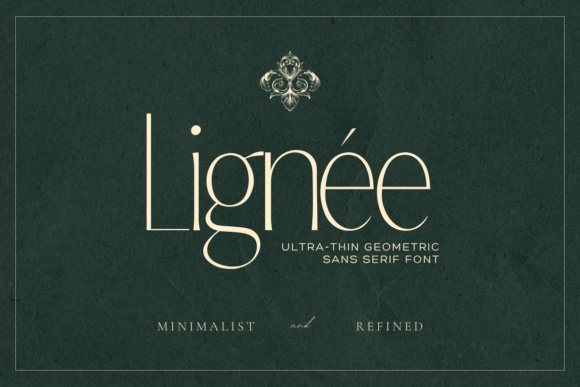
Lignée Font represents the pinnacle of minimalist sophistication, offering an ultra-thin silhouette that feels both ethereal and grounded. Inspired by the sharp lines of modern architecture and the fluid grace of editorial fashion spreads, this typeface moves away from the bulk of traditional lettering to provide a breath of fresh air in crowded layouts. Its geometric precision is subtly tempered by organic, hand-drawn nuances, making it an exceptional choice for designers who prioritize intentionality and quiet confidence in their visual storytelling.
This typeface excels in environments where negative space is as important as the content itself. Whether you are developing a luxury skincare brand or designing a high-end gallery catalog, the delicate strokes of Lignée offer a premium feel without overwhelming the viewer. It is a masterclass in how luxury sans serif fonts can utilize restraint to command attention, ensuring that your branding remains distinctive and elegantly understated across both digital and physical touchpoints.
2. Vosage Font
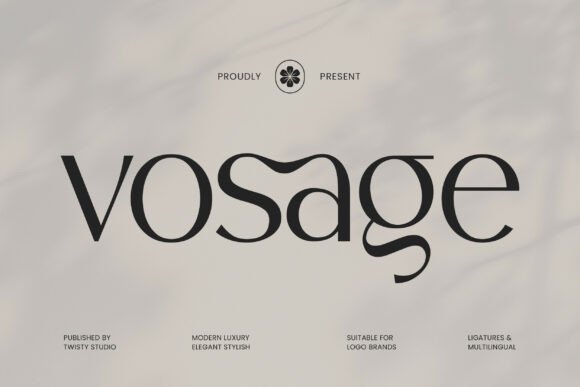
Vosage Font is a testament to modern professionalism, blending sleek lines with balanced proportions to create a high-end visual experience. Unlike more decorative alternatives, this typeface focuses on clarity and contemporary refinement, allowing the core message of a brand to resonate through minimalist elegance. It bridges the gap between timeless classicism and current design trends, making it a versatile tool for corporate identities that need to appear established yet forward-thinking.
Ideal for premium packaging and editorial layouts, Vosage provides a polished identity that scales beautifully from small-print disclosures to large-scale signage. Its understated nature makes it a perfect companion for high-contrast photography and bold color palettes, ensuring the typography supports rather than competes with the overall aesthetic. By choosing this font, you are opting for a sense of quiet luxury that speaks volumes through its sheer quality and structural integrity.
3. High Font
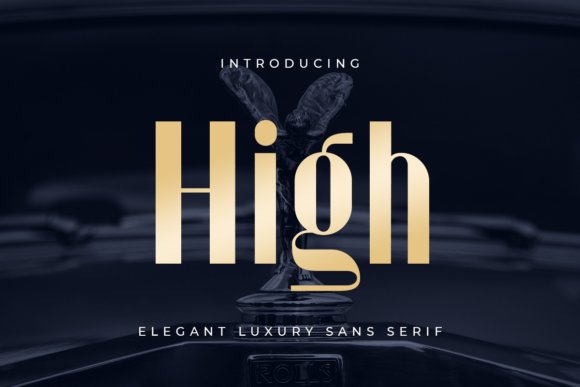
High Font stands out as a versatile powerhouse within the world of luxury sans serif fonts, specifically engineered for projects that demand a custom, bespoke appearance. What sets this typeface apart is its expansive library of unique ligatures and alternate characters, which allow designers to craft one-of-a-kind wordmarks and headlines. It moves beyond standard letterforms to offer a creative playground where shapes can be manipulated to add significant value and personality to a brand’s visual vocabulary.
For product owners and creative directors seeking a solution for high-end event branding or fashion-forward lookbooks, High Font offers endless possibilities for customization. The ability to swap out standard glyphs for avant-garde alternates ensures that no two designs ever look the same, providing a level of exclusivity that is vital in luxury markets. It is an essential asset for anyone looking to push the boundaries of traditional sans serif design while maintaining an aura of sophisticated elegance and artisanal craft.
4. Marquez Font
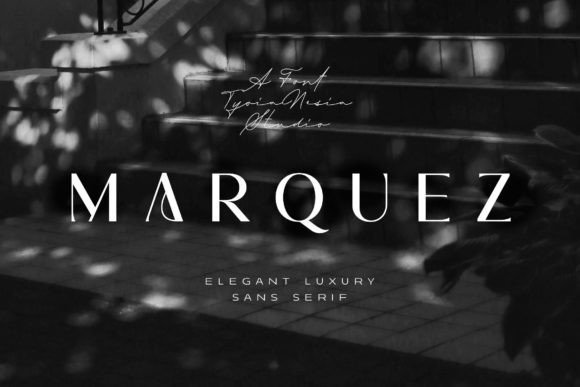
Marquez stands at the intersection of high-fashion editorial design and modern boutique branding. Its letterforms are imbued with a ‘girlboss’ energy that balances strength with a delicate, feminine touch, making it an exceptional choice for luxury sans serif fonts aimed at cosmetic labels and upscale stationery. The typeface thrives in environments where visual hierarchy is paramount, offering a clean yet assertive presence that captures the essence of a contemporary art gallery or a high-end fashion magazine.
Beyond its aesthetic appeal, this font is engineered for versatility across various mediums, from digital blog headers to tactile home decor packaging. When used in luxury logo design, Marquez provides a timeless quality that feels both current and enduring. It is particularly effective for promotional materials where a sense of personalized exclusivity is required, ensuring that every headline or invitation carries a distinctively professional and polished signature.
5. Legowo Font
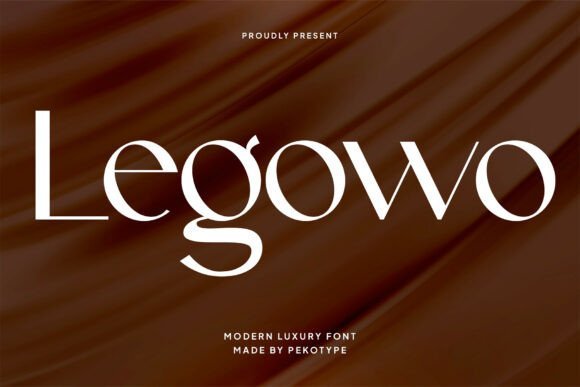
Legowo redefines the minimalist aesthetic by introducing a striking variation in stroke weight that is rarely seen in traditional sans-serif families. This intentional contrast between hairline thins and bold stems creates a rhythmic elegance that mirrors the sophistication of high-end jewelry or prestige automotive branding. By breaking the monotony of uniform lines, it offers a dynamic visual texture that commands attention without sacrificing the clarity required for high-fashion digital platforms.
In practical application, Legowo excels as a headline font for premium editorial layouts and luxury advertising campaigns. Its unique construction allows it to function as a focal point in social media visuals, where its modern charm helps brands project an image of confident opulence. Whether utilized for a sophisticated logo or as a secondary typeface in an expansive brand identity project, it delivers a level of refinement that elevates the overall design narrative.
6. Le Quarte Font
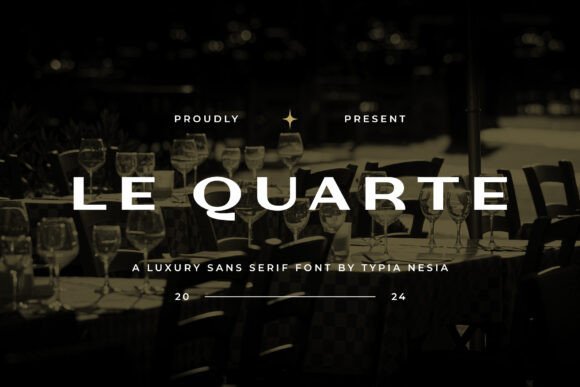
Le Quarte is characterized by its wide, expanded architecture, which evokes a sense of grandeur and spatial luxury often found in high-tier real estate or premium fragrance branding. The horizontal emphasis of its characters provides a cinematic feel, making it a powerful statement font for large-scale posters and digital hero sections. This typeface manages to bridge the gap between classic proportions and a futuristic edge, resulting in a versatile tool for designers looking to convey stability and prestige.
The expansive nature of Le Quarte makes it particularly effective for luxury packaging and advertising where the brand name needs to dominate the visual field with authority. Its confident letterforms are designed to work harmoniously with minimalist layouts, allowing the negative space to breathe while the typography anchors the design. For any project requiring an unmistakable aura of modern elegance, this font serves as a cornerstone for building an elite brand identity.
7. Cauloid Font
Cauloid Font represents a masterclass in monoline fluidity, offering a rhythmic soul that captures the essence of a coastal breeze. Designed by Gracetype Studios, this typeface maintains a consistent stroke thickness, which provides a clean, contemporary edge that contrasts beautifully with more traditional calligraphy. Its sweeping loops and elegant ligatures are engineered for brands that prioritize a friendly yet high-end aesthetic, ensuring that even complex lettering remains legible and visually harmonious across various digital and print mediums.
In high-end design environments, this typeface excels when utilized for luxury packaging, particularly within the organic skincare or artisanal beverage sectors where a sense of natural movement is paramount. To maximize its visual impact, it is best paired with minimalist luxury sans serif fonts to create a balanced typographical hierarchy that allows the script’s personality to shine without overwhelming the layout. Whether you are developing a travel blog header or a sophisticated boutique logo, Cauloid provides the versatile, handmade warmth necessary for effective visual storytelling.
8. Belaria Font
Belaria Font is a sophisticated exercise in modern calligraphy, blending the timeless charm of hand-flowing ink with the precision of contemporary digital type. Characterized by its natural bounce and varying stroke weights, this typeface mimics the elegant friction of a nib on parchment, making it a premier choice for designers looking to inject a sense of movement into static layouts. Its smooth, sweeping curves are designed to command attention, providing an ethereal and romantic vibe that is perfect for large-scale headers or gold-foil stamped stationery.
This font transitions seamlessly from intimate personal branding to commercial displays, such as high-end restaurant menus or luxury lifestyle magazine covers. For a truly professional finish, it should be layered with structured luxury sans serif fonts, creating a rhythmic tension between the script’s organic flourishes and the sans serif’s geometric stability. This combination is particularly effective for wedding invitation suites and wellness-oriented branding, where an aura of effortless grace and premium quality is essential to the brand’s identity.
9. Agathe Signature Font
Agathe Signature Font is the epitome of high-fashion minimalism, featuring a rapid-stroke aesthetic that feels like the authentic handwriting of a creative professional. This typeface adds a deeply personal, human touch to digital designs, transforming standard text into a bespoke piece of art. It is specifically tailored for those who require a sophisticated identity, such as high-end photography watermarks, editorial layouts, or sleek business cards for independent consultants who value understated elegance and exclusivity.
The rhythmic lines of Agathe Signature offer a chic, expressive flow that works exceptionally well when contrasted against bold, wide-spaced luxury sans serif fonts. This pairing creates a contemporary visual hierarchy that feels both modern and established. Additionally, the font is PUA encoded, ensuring that all unique glyphs and artistic swashes are easily accessible across various design software, making it a practical yet stylish tool for crafting cohesive social media aesthetics and premium branding packages.
10. Fringk Font
Fringk Font represents a masterclass in refined display typography, blending the timeless charm of traditional serifs with the crisp execution required by contemporary high-end branding. Its sharp terminals and pronounced contrast provide a sense of architectural precision, making it an exceptional choice for editorial layouts or prestige packaging where every millimeter of design counts. By balancing classic warmth with modern geometric clarity, this typeface ensures that your brand identity remains legible while projecting an aura of effortless sophistication and boutique exclusivity.
Beyond its visual appeal, the versatility of Fringk Font allows it to anchor diverse creative projects, from upscale wedding stationery to fashion lookbooks. Its polished letterforms pair seamlessly with minimalist luxury sans serif fonts, allowing designers to create a layered typographic hierarchy that feels curated and intentional. Whether utilized for a bold headline in a luxury magazine or a delicate logo for a premium skincare line, this typeface brings a level of grace and authority that naturally elevates the surrounding visual elements.
11. Pavesky Font
Pavesky Font is the epitome of the modern luxury sans serif fonts movement, defined by its minimalist structure and gracefully flowing curves. Designed specifically for brands that want to communicate a sense of quiet luxury, this typeface avoids unnecessary ornamentation in favor of balanced proportions and clean, feminine aesthetics. Its airy letterforms make it a standout choice for cosmetic branding and skincare packaging, where a feeling of purity and high-grade quality is essential for connecting with a discerning audience.
In digital environments, Pavesky Font maintains its impeccable readability, making it a reliable asset for aesthetic visual projects and social media assets that require a polished, premium look. The font’s subtle weight distribution lends a rhythmic flow to titles and posters, ensuring that the message is delivered with a calm but confident voice. It is a go-to resource for designers looking to infuse their work with a timeless beauty that transcends fleeting trends, providing a stable foundation for any luxury-oriented visual strategy.
12. Spadore Font
Spadore Font bridges the gap between nostalgic retro aesthetics and cutting-edge modern design, offering a typographic solution that is both trendy and deeply elegant. What distinguishes this typeface is its rich selection of alternates and ligatures, which are easily accessible via PUA encoding. This allows for a high degree of customization, enabling designers to craft unique, bespoke wordmarks for high-fashion logos or luxury website headers that look custom-made. The interplay between its stylish binders and classic structure provides a creative edge that many standard luxury sans serif fonts lack.
This font thrives in environments that demand a bold, artistic statement without sacrificing professional polish. It is particularly well-suited for branding projects that wish to evoke a sense of heritage while remaining firmly rooted in the present. Whether you are developing an identity for a boutique hotel or a luxury lifestyle blog, Spadore Font offers the flexibility to pivot between a clean, modern display and a more elaborate, decorative style, ensuring your typography is as distinctive as the brand it represents.
13. Broadway Flower Font
Broadway Flower represents a fresh take on luxury sans serif fonts, blending modern simplicity with a touch of artistic flair. Its defining characteristic lies in the thoughtfully crafted uppercase ligatures, which offer designers a wealth of creative possibilities when building bespoke logos or editorial headlines. This balance of minimalism and decorative potential makes it a standout choice for high-end lifestyle brands that want to convey both clarity and personality.
Beyond its structural elegance, the font radiates a bright and airy vibe that feels inherently sophisticated. It is particularly effective for wedding stationery, premium product labels, and photography watermarks where a clean, modern aesthetic is required. By integrating this typeface into your design toolkit, you gain access to a versatile asset that elevates standard typography into a luxury branding experience.
14. Golie Font
Golie Font is a premier example of refined typography, specifically engineered for brands that prioritize a feminine and high-end aesthetic. Characterized by its clean lines and meticulously balanced proportions, this luxury sans serif font avoids unnecessary clutter to focus on pure, sophisticated form. It is the ideal companion for boutique fashion houses and the cosmetics industry, where every curve of a letter must reflect the quality of the product it represents.
The typeface excels in digital and print environments alike, providing a polished look for luxury catalogs, beauty blogs, and modern editorial layouts. Its understated strength allows it to command attention without overwhelming the overall design, making it a staple for creative directors who need a reliable, upscale typeface for identity projects. Whether applied to a minimalist business card or a grand storefront sign, Golie maintains its clarity and premium feel.
15. Mofulina Font
Mofulina Font arrives as a majestic entry into the world of luxury sans serif fonts, designed specifically for high-impact display use. Its architectural structure conveys a sense of permanence and prestige, making it an excellent choice for corporate identities, luxury real estate branding, and upscale automotive marketing. The font includes a variety of stylistic alternates, allowing you to customize specific characters to fit the unique rhythm of your brand name or headline.
This typeface is more than just a collection of letters; it is a tool for visual storytelling that emphasizes clean, bold elegance. From sophisticated social media campaigns to high-end product packaging and stationery, Mofulina provides a sense of grandeur that is hard to replicate. Its versatility ensures that even in complex layouts, the font remains legible while exuding an aura of exclusivity and modern craftsmanship.
16. Luxury Élégance Font
Luxury Élégance Font stands out by blending a refined aesthetic with an approachable, authentic personality. While many luxury sans serif fonts lean towards a cold, sterile minimalism, this typeface introduces a subtle playfulness that breathes life into branding projects. It is particularly effective for lifestyle influencers and boutique agencies looking to bridge the gap between high-end professionalism and a welcoming, human-centric brand voice.
The font’s versatility shines in tactile applications such as custom planners, photo albums, and high-quality stationery. Its clean lines ensure maximum readability on digital screens, making it a top-tier choice for modern blog headers and social media advertisements. Whether you are crafting a sophisticated logo or an intimate wedding invitation, this font provides a polished finish that never feels over-engineered.
17. Black Font
Black Font redefines the standard display typeface by merging heavy, comic-inspired proportions with the sophisticated DNA of luxury sans serif fonts. This contemporary powerhouse is designed for creators who need their messaging to be both unmissable and upscale. The balanced weight and generous counters offer exceptional legibility, making it an ideal candidate for bold product packaging and high-contrast advertising campaigns that demand immediate attention.
Beyond its visual weight, the font carries a fancy, avant-garde flair that works surprisingly well in specialized wedding designs or edgy streetwear branding. It serves as a striking focal point for watermarks and professional photography signatures where a thin, wispy font simply won’t suffice. If your project requires a unique blend of modern architecture and whimsical character, this font delivers a distinctive presence.
18. Bosky Evanish Font
Bosky Evanish Font is a masterclass in modern editorial design, offering a sleek and stylish silhouette that is synonymous with the high-fashion industry. As one of the most versatile luxury sans serif fonts in a designer’s toolkit, it balances masculine strength with feminine grace, making it a neutral yet powerful choice for diverse branding identities. The typeface feels inherently expensive, lending an air of prestige to magazine covers, book layouts, and premium website headers.
This font is especially suited for signature-style logos and corporate stationery where a minimal but impactful aesthetic is required. Its crisp edges and elegant spacing make it a favorite for architectural firms and luxury real estate marketing. When used in typography-heavy layouts or digital lookbooks, it provides a sophisticated structure that elevates the surrounding content without overwhelming the viewer’s eye.
19. Jenura Font
Jenura Font is a masterful blend of traditional elegance and contemporary chic, designed to stand out in high-fashion environments. Its high-contrast letterforms and graceful curves provide a sense of refined opulence that is often sought after in premium editorial designs. By incorporating unique ligatures and artistic alternates, this typeface allows designers to create bespoke typographic layouts that feel tailored and exclusive. It serves as an excellent high-impact companion when paired with minimalist luxury sans serif fonts, offering a visual counterpoint that adds depth to any brand identity project.
Beyond its striking visual appeal, Jenura is engineered for versatility across various media, from luxury perfume packaging to digital storefronts for boutique retailers. The balance between its sharp serifs and smooth terminals ensures readability while maintaining an aura of prestige. Whether you are crafting a logo for a high-end jewelry line or laying out a multi-page fashion spread, this font delivers a polished, sophisticated aesthetic that elevates the overall design language to a world-class level.
20. Artezy Font
The Artezy Font family represents the pinnacle of modern geometric design, offering a comprehensive suite of 18 distinct weights that cater to every typographic need. Inspired by the intersection of fine art and effortless legibility, this collection is a quintessential example of how luxury sans serif fonts can transform a simple layout into a statement of high-end branding. The high-contrast strokes and clean, modern lines provide a crisp visual hierarchy, making it an ideal choice for corporate identities, architectural presentations, and premium tech startups looking for a sleek, authoritative voice.
In practical application, the breadth of the Artezy family allows for incredible creative flexibility, enabling designers to maintain brand consistency across everything from massive outdoor billboards to intricate mobile app interfaces. The lighter weights exude an airy, ethereal quality perfect for lifestyle magazines, while the bolder weights command attention on product labels and digital headers. When looking for a font that embodies the essence of modern luxury sans serif fonts, Artezy provides the technical precision and stylistic flair necessary for contemporary visual storytelling.
21. Painting Font
Painting Font captures the organic beauty of hand-lettered calligraphy, bringing a human touch to the digital design landscape. Each character is crafted to mimic the fluid, rhythmic motion of a fine-tipped brush, resulting in a typeface that feels both spontaneous and meticulously planned. This script is defined by its dramatic flourishes and rhythmic flow, making it a standout choice for designers who want to break away from rigid structures and introduce a sense of motion and grace into their work. It is particularly effective when used as an accent or headline font alongside clean luxury sans serif fonts, creating a balanced aesthetic that feels both approachable and high-end.
For projects that require an extra layer of personalization, such as wedding invitations, artisan wine labels, or boutique spa branding, the Painting Font offers an unparalleled level of prestige. The inclusion of PUA-encoded characters ensures that its wide array of decorative swashes and alternates are easily accessible, allowing for customized flourishes that make every word look like a unique piece of art. This font does not just convey information; it conveys a mood of handcrafted luxury and artistic passion that resonates deeply with discerning audiences.
22. Imperium Monogram Font
Imperium Monogram Font stands as a pinnacle of stately design, drawing deep inspiration from the timeless structure of classical Roman inscriptions. Unlike standard luxury sans serif fonts, this typeface prioritizes a bold, structural presence that commands attention through its meticulously balanced proportions and regal flair. It is specifically engineered for high-end creators who need to instill a sense of heritage and noble sophistication into brand identities, making it an exceptional choice for bespoke leather goods, personalized stationery, or noble boutique logos.
Technical versatility is a core strength of this font, as it integrates seamlessly across modern design environments from Adobe Creative Cloud to craft-focused software like Cricut and Silhouette. While it functions beautifully as a standalone monogram, its architectural strength allows it to pair effortlessly with minimalist sans-serif companions to create a layered, multi-dimensional typographic system. Whether you are crafting embossed initials for a luxury wedding or developing a signature seal for a premium skincare line, this font ensures your visual storytelling remains grounded in authority and grace.
23. Geometrica Font
The Geometrica Font collection represents a masterclass in Swiss-inspired minimalism, offering four distinct typefaces—Kime, Romel, Berlin, and Elite—that embody the precision of modern geometric design. As a premier entry in the world of luxury sans serif fonts, this family emphasizes clean lines and a grotesque aesthetic that ensures maximum legibility without sacrificing high-end style. The collection is particularly effective for designers aiming for a contemporary, professional look in digital spaces, such as high-end e-commerce interfaces or editorial web layouts where clarity and credibility are paramount.
Each weight and style within the Geometrica suite has been refined to provide perfect visual balance, making it a go-to resource for luxury product packaging and sophisticated corporate branding. The inherent simplicity of the characters allows other design elements to breathe, yet provides a distinct personality that elevates any project from standard to premium. Its versatility extends across multiple mediums, serving as a reliable foundation for everything from minimalist cosmetics branding to complex architectural signage, proving that understated elegance is often the most powerful tool in a designer’s arsenal.
24. Cash and Mafia Font
Cash and Mafia Font is a masterstroke of high-fashion typography, blending ultra-thin strokes with an editorial serif structure to create an atmosphere of pure opulence. While it occupies the serif category, its sleekness and refined stems provide a sophisticated alternative for those who usually gravitate toward luxury sans serif fonts for their clean silhouettes. This typeface is purposefully designed for the world of haute couture and boutique branding, where every curve must exude grace and every line must whisper exclusivity. It thrives in environments like art gallery catalogs, high-end fashion magazines, and luxury hotel identity systems.
The delicate nature of this font makes it particularly striking for large-scale applications such as cover titles, boutique signage, and specialized event invitations where the typography acts as a central piece of art. It bridges the gap between traditional prestige and modern avant-garde, allowing designers to create layouts that feel both established and trendsetting. When used in conjunction with generous white space and high-quality photography, Cash and Mafia transforms standard promotional materials into a curated experience, perfect for brands that value a beauty-forward and fancy aesthetic.
25. Luminoir Grotesk Font
Luminoir Grotesk Font stands as a pinnacle of contemporary design, masterfully bridging the gap between high-performance variable technology and the timeless allure of luxury sans serif fonts. This typeface is characterized by its innovative tilted stems and rhythmic spacing, which infuse static text with a sense of fluid motion and futuristic intent. By offering a variable weight spectrum, it allows designers to fine-tune the visual weight of their layouts, ensuring that every headline or body block maintains a sophisticated, custom-tailored appearance across digital and print platforms.
Beyond its technical prowess, Luminoir Grotesk is an exceptional choice for forward-thinking brands in the tech and luxury sectors. The subtle angularity of the letterforms provides a sharp, professional edge that remains highly legible at any scale, making it ideal for high-end mobile app interfaces, editorial spreads, and minimalist logo designs. Whether you are crafting a brand identity for a silicon valley disruptor or a luxury lifestyle magazine, this font provides the structural integrity and aesthetic polish required to stand out in a saturated market.
26. Caveline Font
Caveline Font represents the “less is more” philosophy, providing a pristine example of how minimalist architecture can define the category of luxury sans serif fonts. Its design is rooted in refined proportions and expansive kerning, creating an airy, breathable aesthetic that feels inherently premium. The clean, unadorned strokes of Caveline are specifically engineered to convey a sense of effortless grace, making it a go-to asset for designers working within the high-fashion, skincare, and boutique jewelry industries.
This typeface excels in environments where the typography needs to whisper rather than shout. It is particularly effective for high-end packaging design, where the metallic foil or embossed texture of the print can harmonize with the font’s slender lines. Furthermore, Caveline is an excellent choice for luxury wedding stationery and upscale social media campaigns, offering a visual identity that is both contemporary and timelessly stylish. Its versatility ensures that whether it is used in a bold uppercase title or a delicate lowercase caption, the result is always one of pure, understated elegance.
27. Vetto Font
Vetto Font is a masterclass in soft sophistication, specifically tailored for brands that seek a delicate balance between modern structure and feminine charm. As a standout among luxury sans serif fonts, Vetto avoids the harshness of traditional geometric types, instead opting for smooth transitions and inviting curves that feel approachable yet undeniably high-end. This makes it an invaluable tool for boutique agencies, cosmetic labels, and luxury hospitality brands looking to establish a warm, prestigious presence.
The typeface is meticulously balanced to ensure that every character feels like a piece of art, making it perfect for centerpiece logos and high-impact hero images on luxury websites. Its clarity and chic proportions also make it highly effective for editorial use, particularly in beauty-focused magazines where the typography must complement intricate photography without distracting from it. By integrating Vetto into your creative toolkit, you gain the ability to craft visual narratives that resonate with a discerning, style-conscious audience.
28. Highfield Font
Highfield represents the peak of editorial sophistication, drawing inspiration from high-end fashion magazines and bespoke typography used in elite design circles. Its geometric foundation is meticulously tuned with optical corrections, ensuring that every curve and stem feels balanced regardless of the resolution or viewing distance. This structural versatility makes it a cornerstone for designers seeking luxury sans serif fonts that transition seamlessly from sharp, high-impact headings to highly readable, long-form body copy.
Beyond its aesthetic appeal, the family includes a robust set of OpenType features, supporting an expansive range of Central, Eastern, and Western European languages. The bold weight commands immediate attention on digital billboards and luxury store signage, while the lighter weights maintain a whisper of elegance in high-quality print brochures. It is an ideal choice for international brand identities that need to communicate both technical precision and heritage prestige across diverse global markets.
29. Good Flash Font
Good Flash is a masterclass in understated refinement, specifically engineered for modern brands that want to evoke a sense of timelessness without relying on ornate flourishes. Its characters are stripped of excess, focusing instead on perfect proportions and a clean, airy cadence that breathes life into any layout. This minimalist approach makes it an exceptional tool for the skincare and cosmetic industry, where a sense of purity and premium quality is paramount for both shelf presence and brand identity design.
When utilized in high-fashion lookbooks or boutique wedding invitations, this typeface provides a neutral yet distinct backdrop that allows the photography and overall composition to shine. Its versatility extends into the digital realm for luxury posters and promotional assets where legibility at a glance is required without sacrificing an ounce of sophistication. By choosing Good Flash, designers can craft a visual narrative that feels both cutting-edge and deeply rooted in classical minimalist principles.
30. Quadre Font
Quadre distinguishes itself within the realm of luxury sans serif fonts by introducing a graceful, feminine energy through its subtle curves and specialized stylistic ligatures. While many modern typefaces lean toward industrial stiffness, Quadre prioritizes a fluid, high-fashion aesthetic that feels bespoke and intentionally handcrafted. The inclusion of unique letter combinations allows for the creation of distinctive logos that feel like a custom-designed emblem for artisanal labels and boutique lifestyle brands.
This font is particularly effective for premium product packaging where the interplay between negative space and typography defines the consumer’s perception of value and exclusivity. Its clean lines are optimized for high-end finishes like gold foil stamping or minimalist digital interfaces, ensuring that the brand’s message is delivered with absolute clarity and grace. Whether used for a luxury fashion house or a high-end spa branding project, Quadre adds a layer of visual prestige that elevates the entire design composition.
Investing in high-quality typography is one of the easiest ways to give your designs a more polished, professional look. These 30 luxury sans serif fonts provide a versatile toolkit for any designer looking to create high-end visuals in 2026. I hope this list helps you find the ideal typeface to bring a touch of class and modern style to your upcoming creative projects.